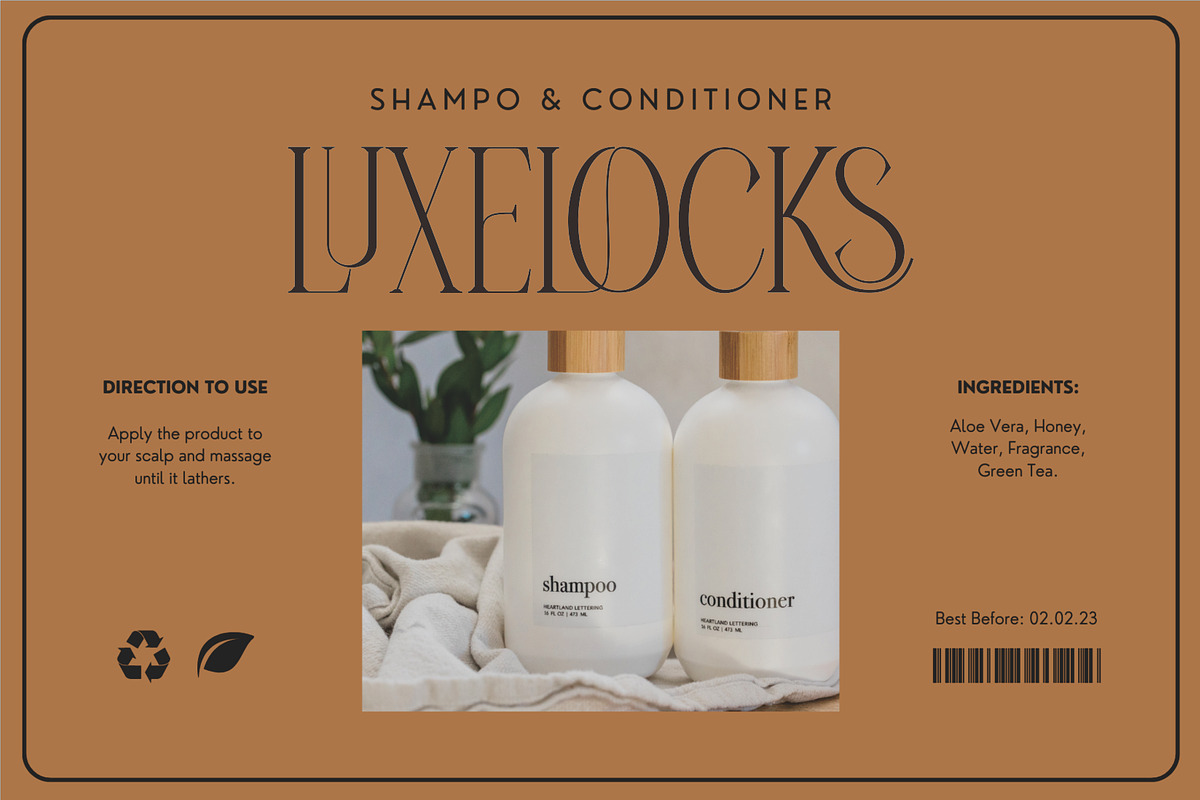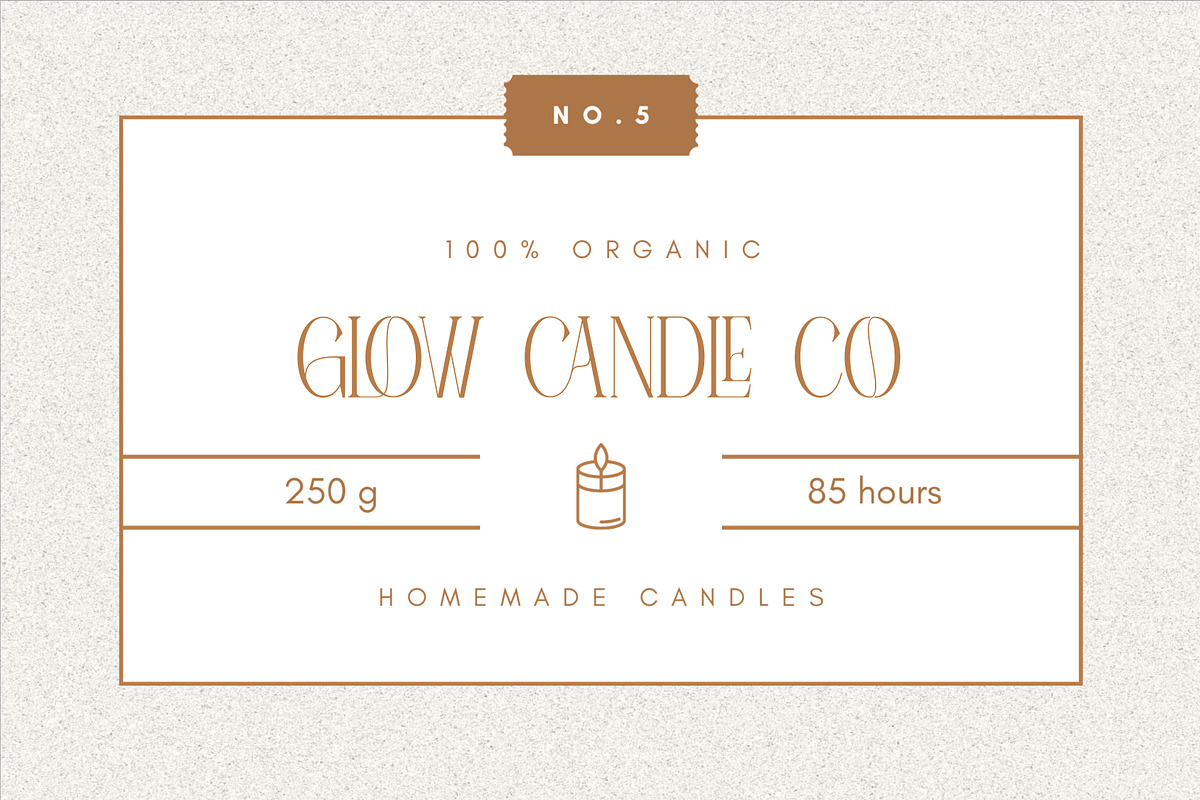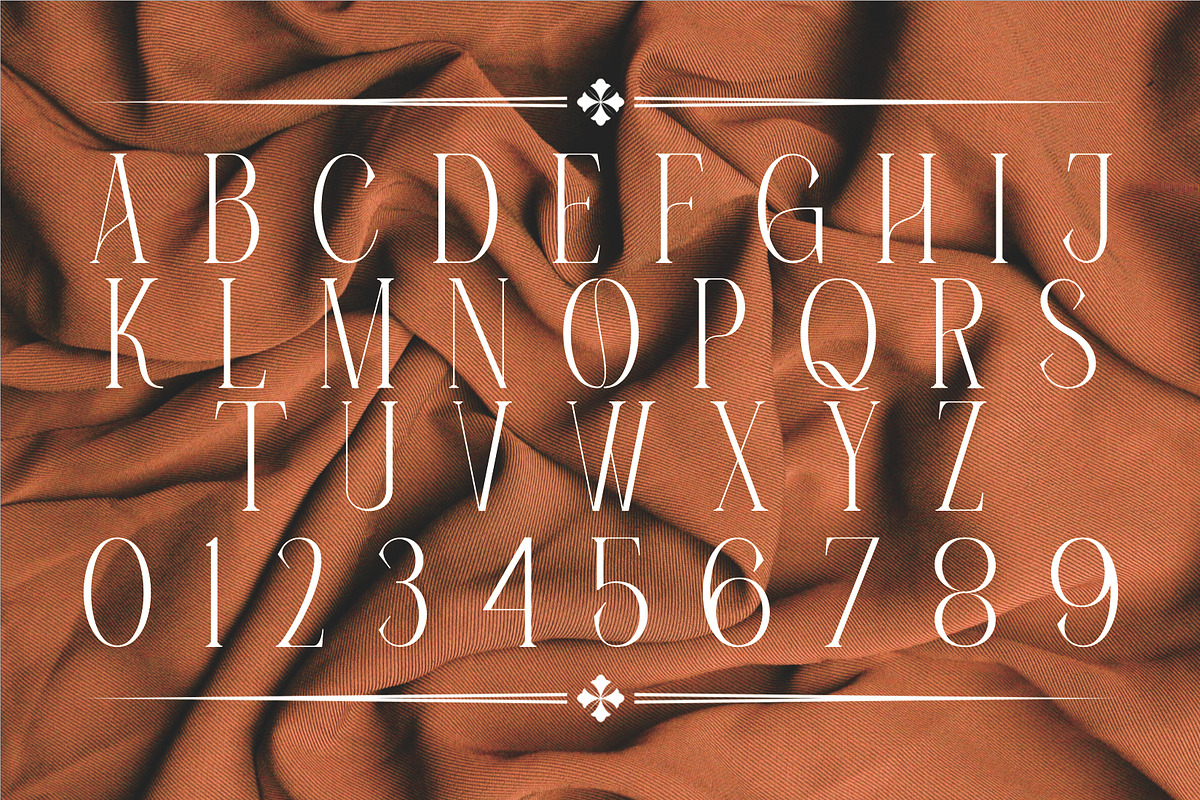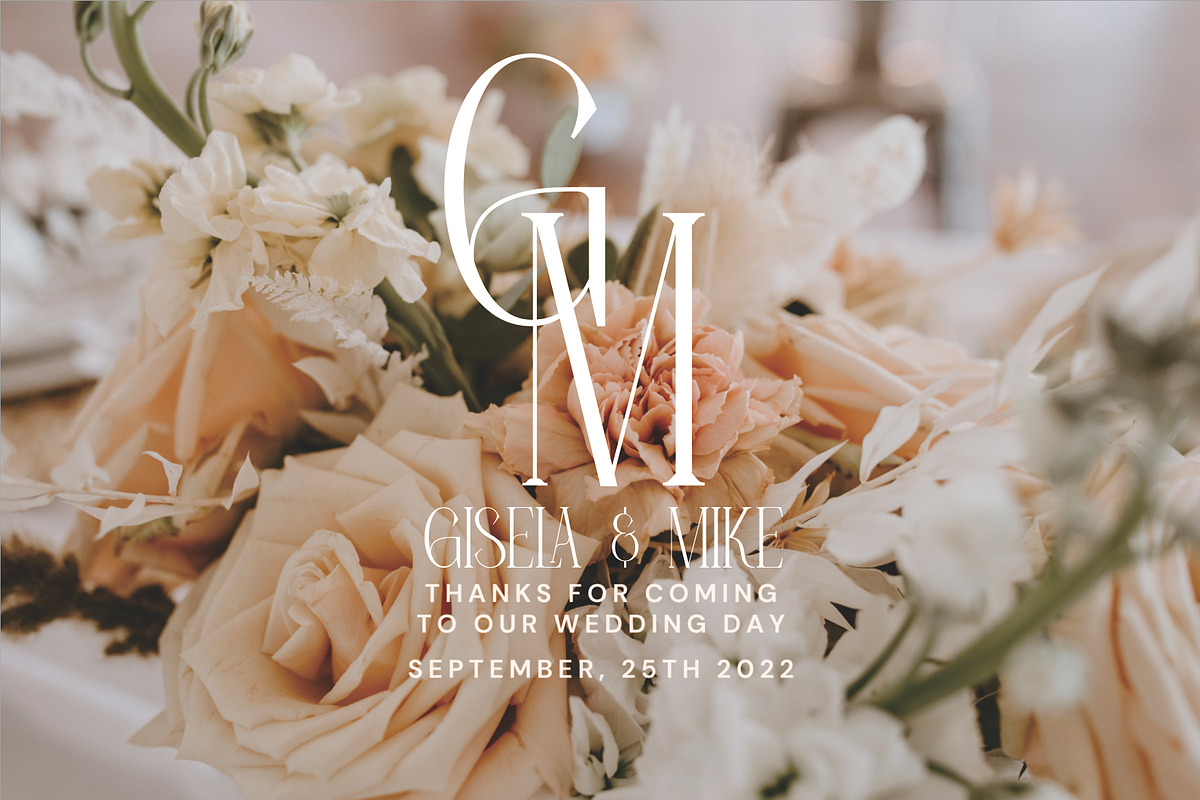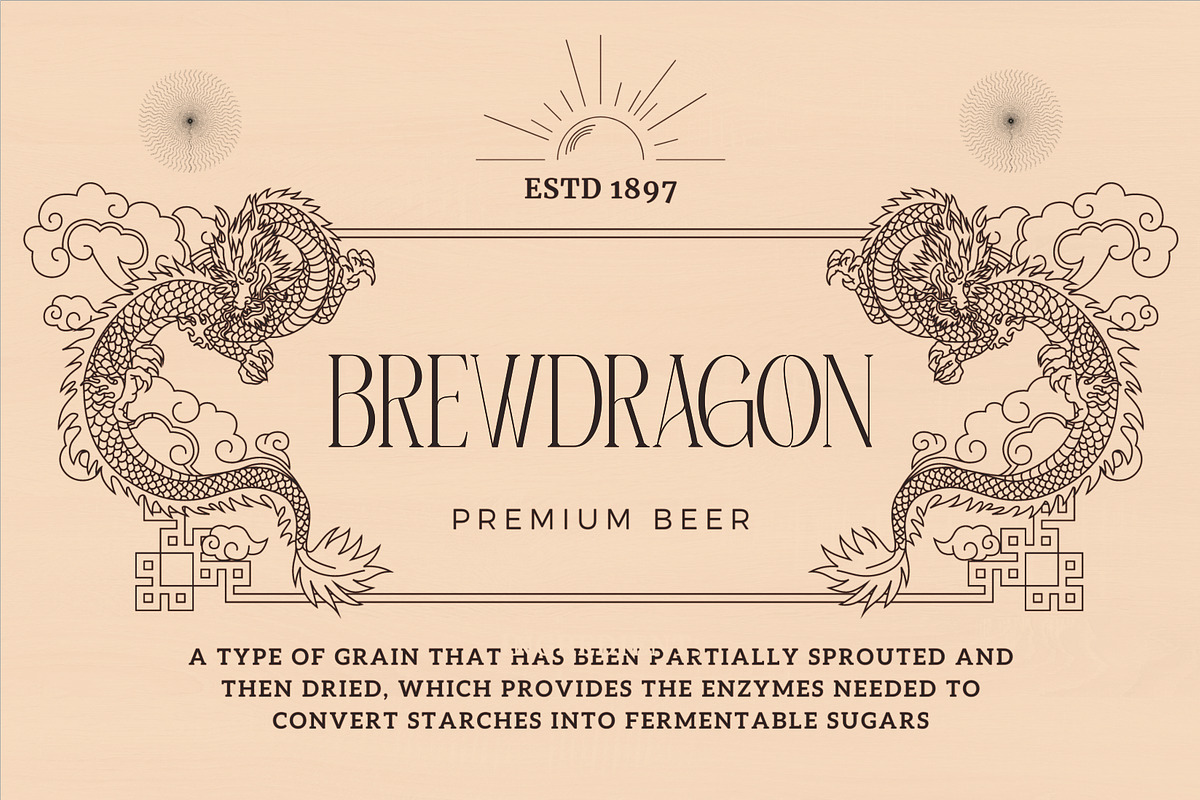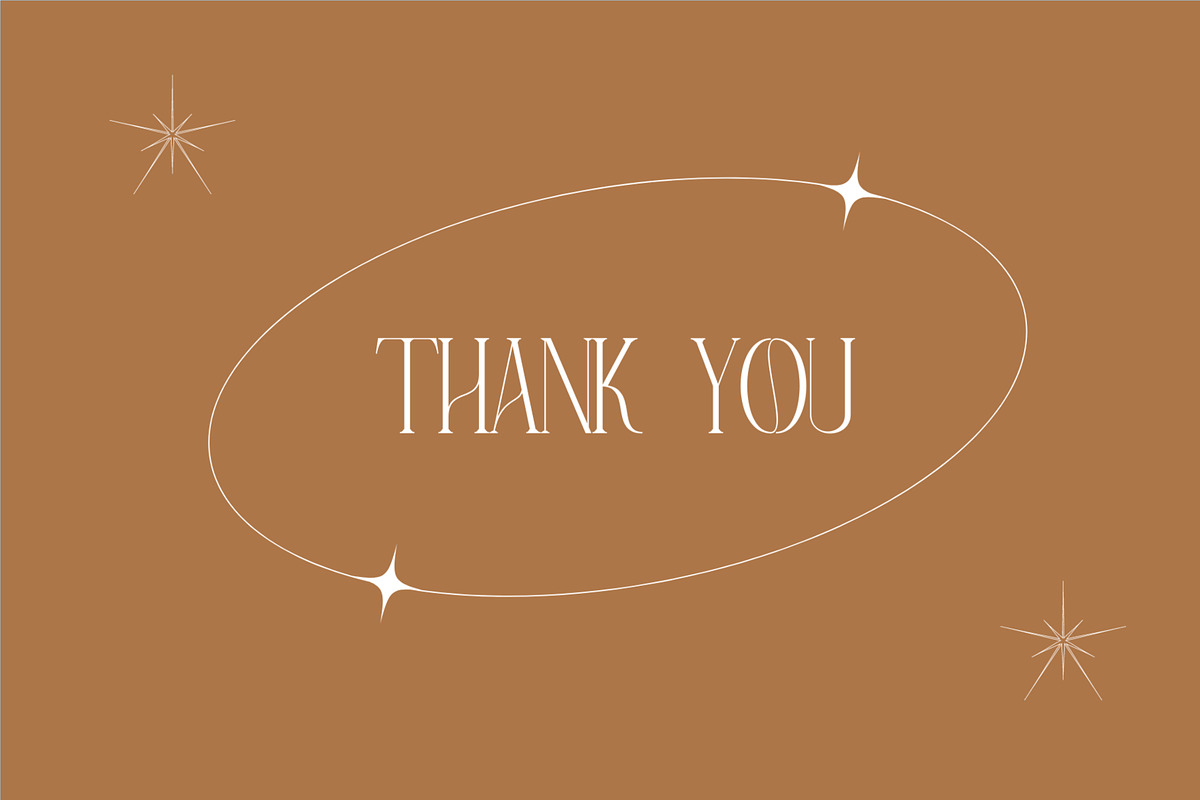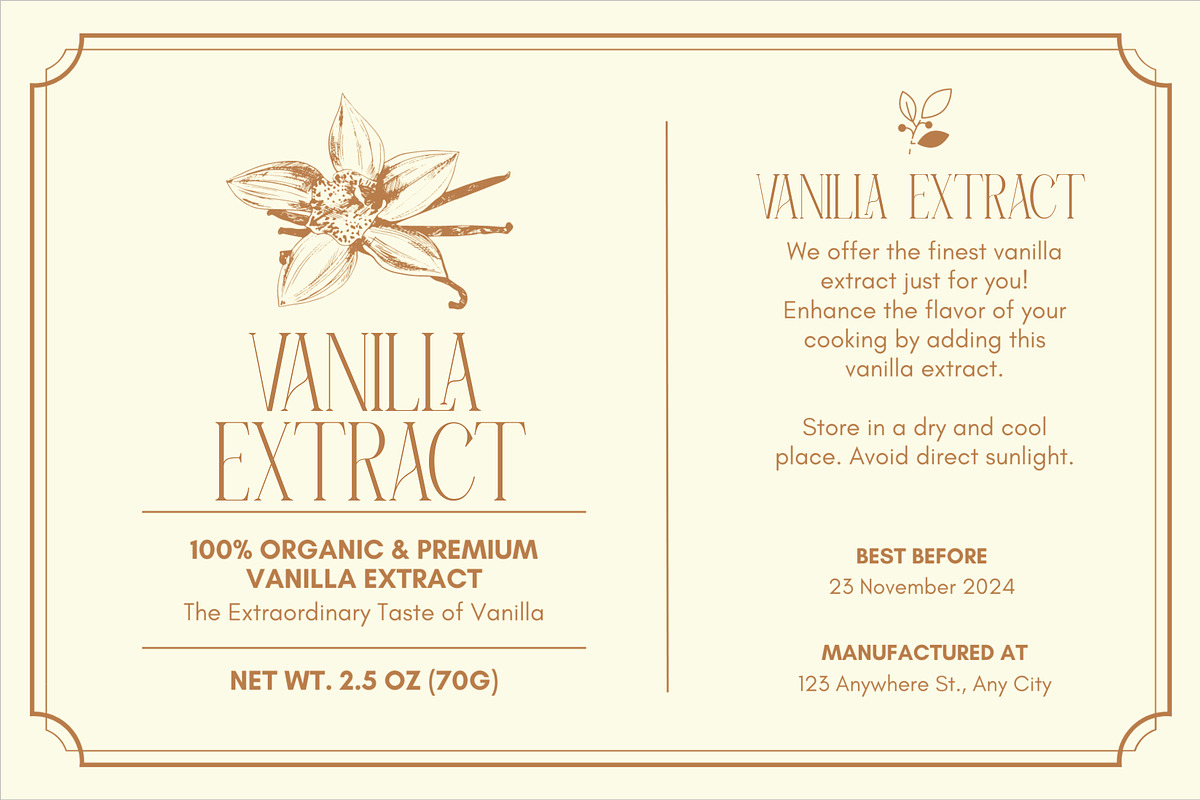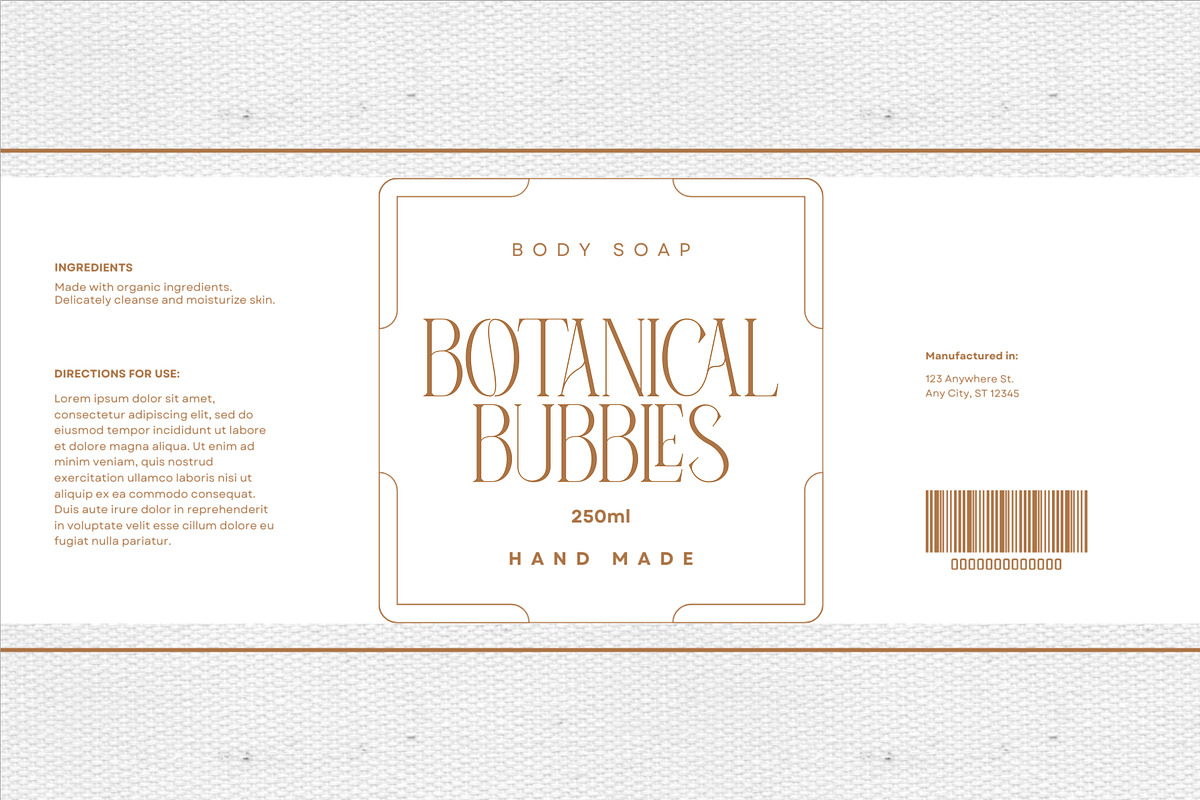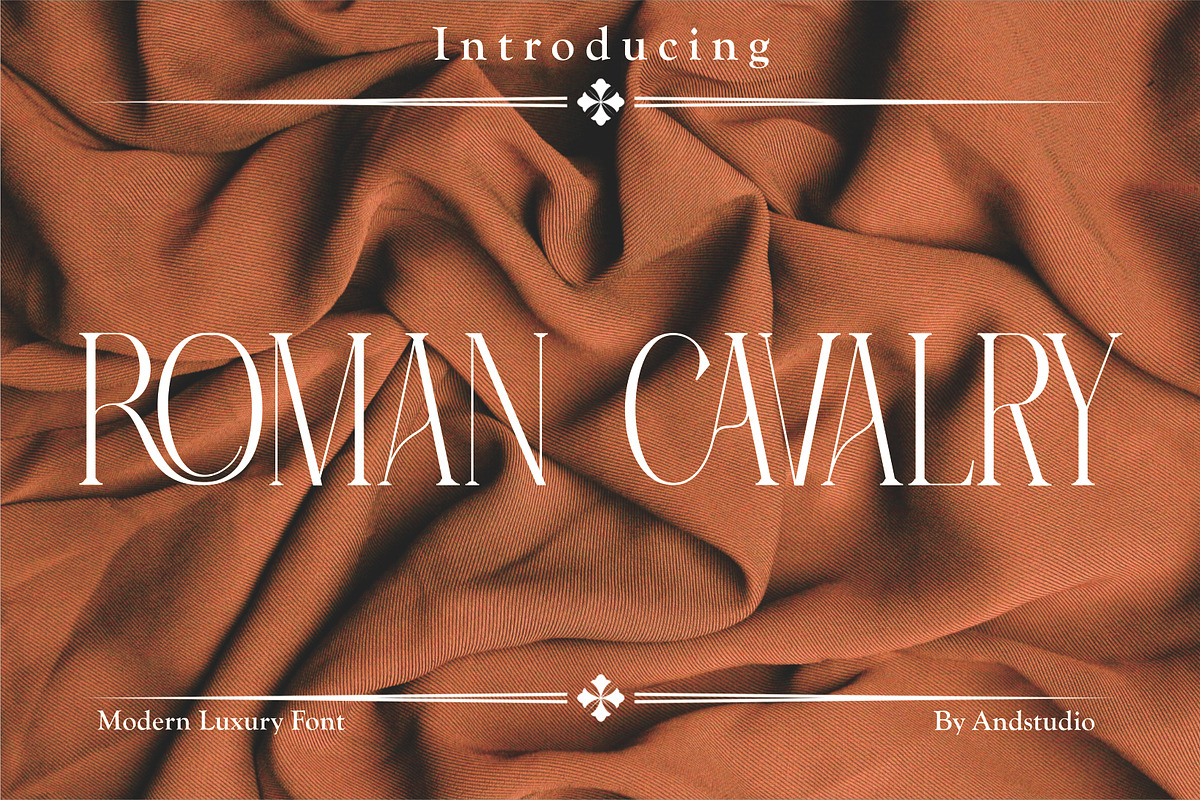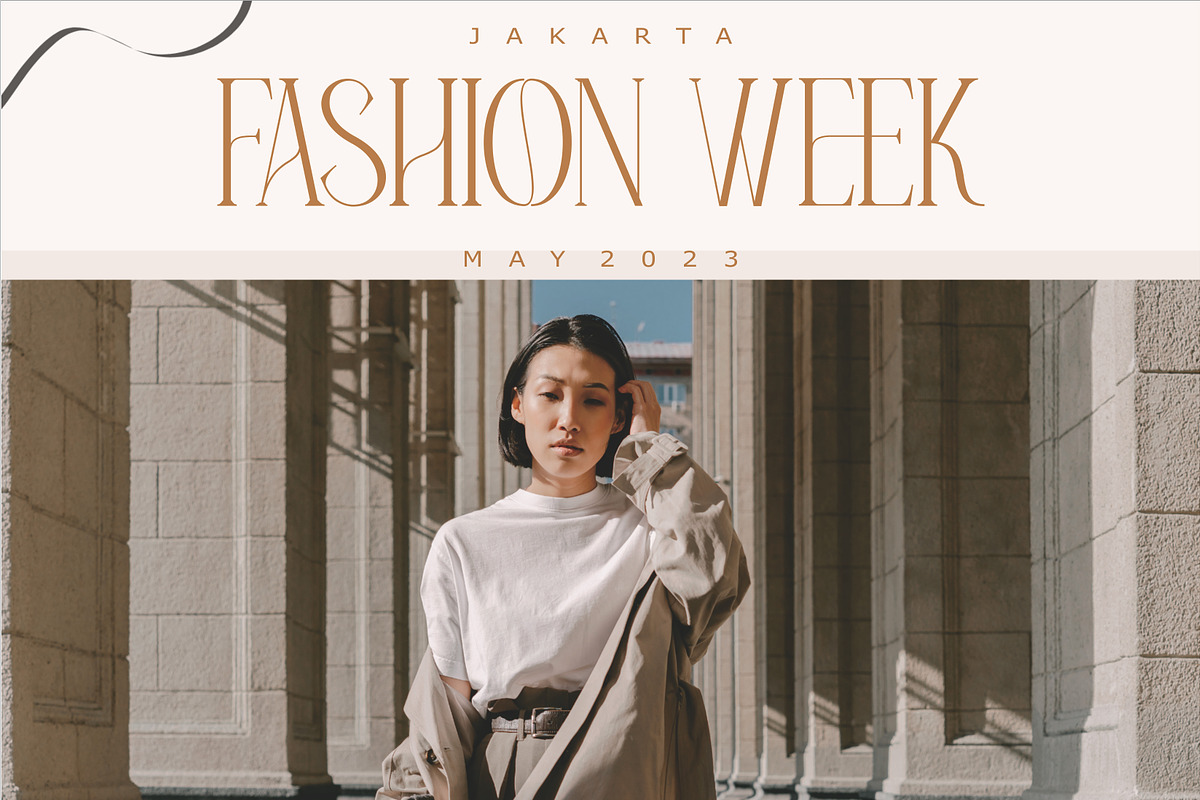
Roman Cavalry
Roman Cavalry is a elegant serif font that combines traditional typographic elements with modern design sensibilities. With its clean and minimalist aesthetic, this font is ideal for a wide range of design projects, including branding, advertising, and editorial design.
The font features tall, slender serifs that give it a classic look, while it’s smooth curves and balanced proportions create a sleek and refined appearance. The overall effect is of understated elegance, making “Roman Cavalry” an excellent choice for high-end designs that demand sophistication and refinement.
At the same time, “Roman Cavalry” is highly legible and easy to read, with clear letterforms and generous spacing. This makes it a versatile font that can be used for everything from headlines and titles to body copy and captions.
Overall, “Roman Cavalry” is a modern serif font that strikes the perfect balance between classic elegance and contemporary style. Whether you’re creating a logo, designing a brochure, or crafting a magazine spread, this font is sure to make your work look polished and professional.